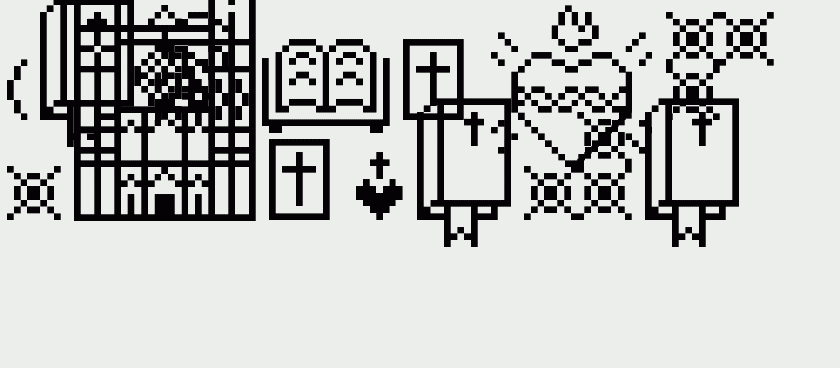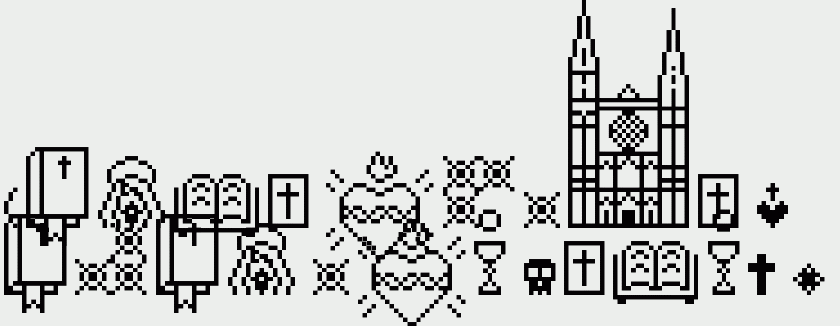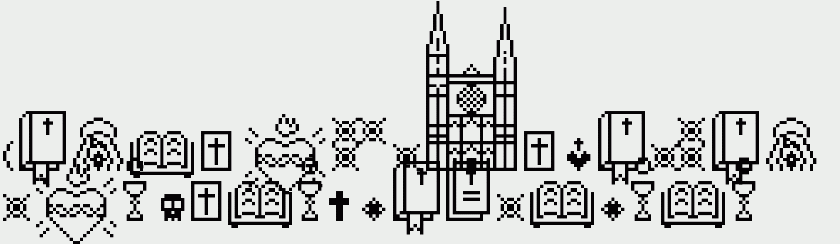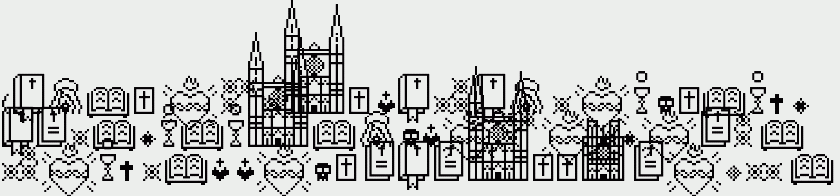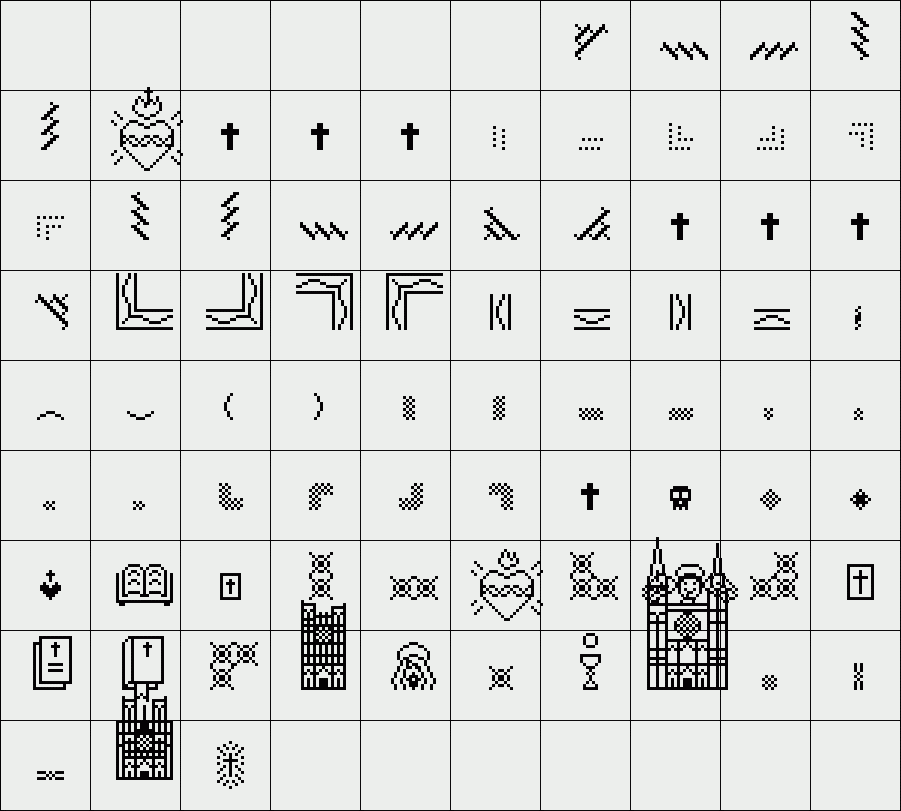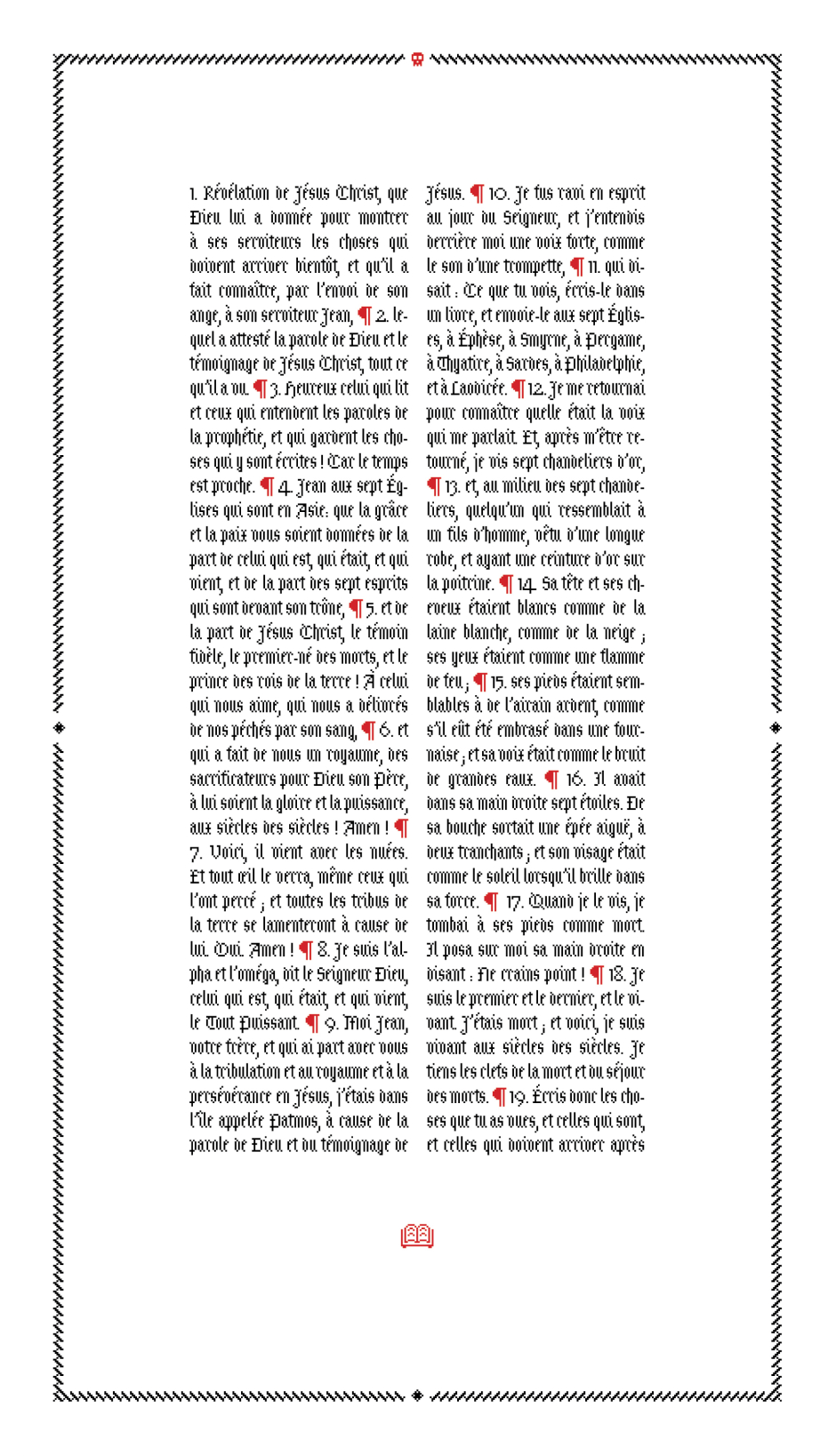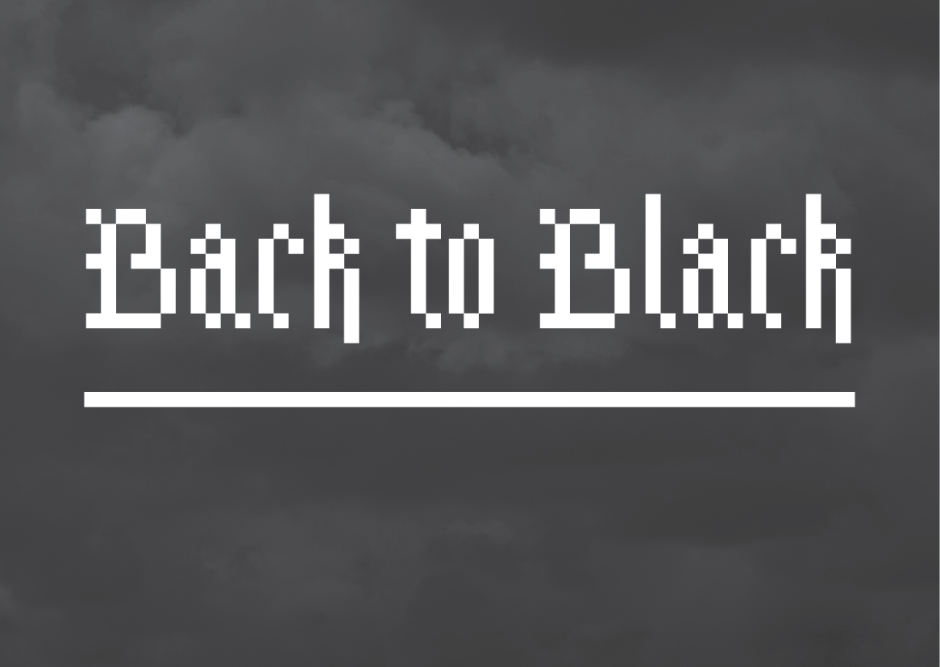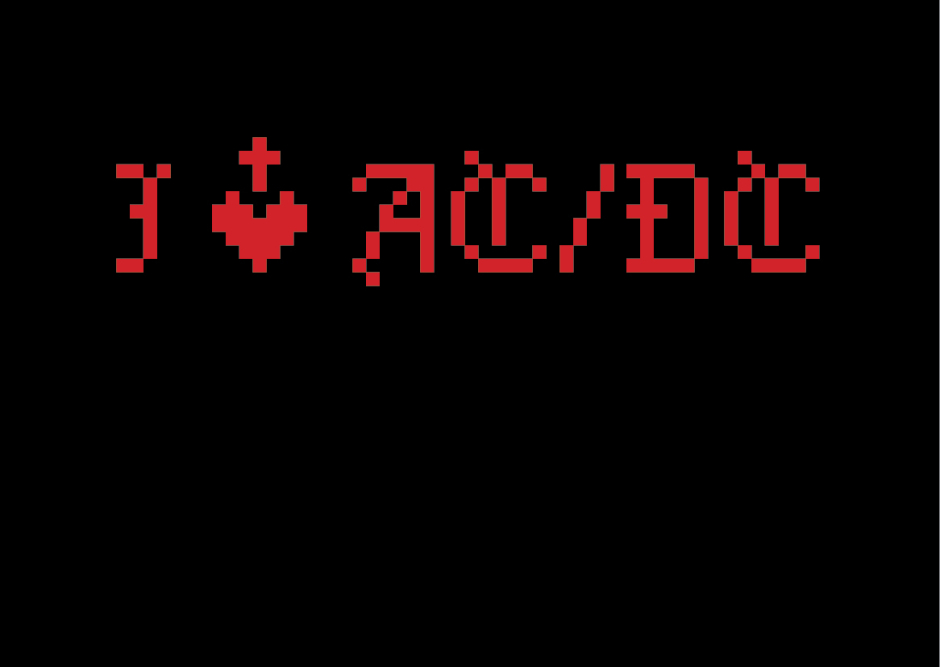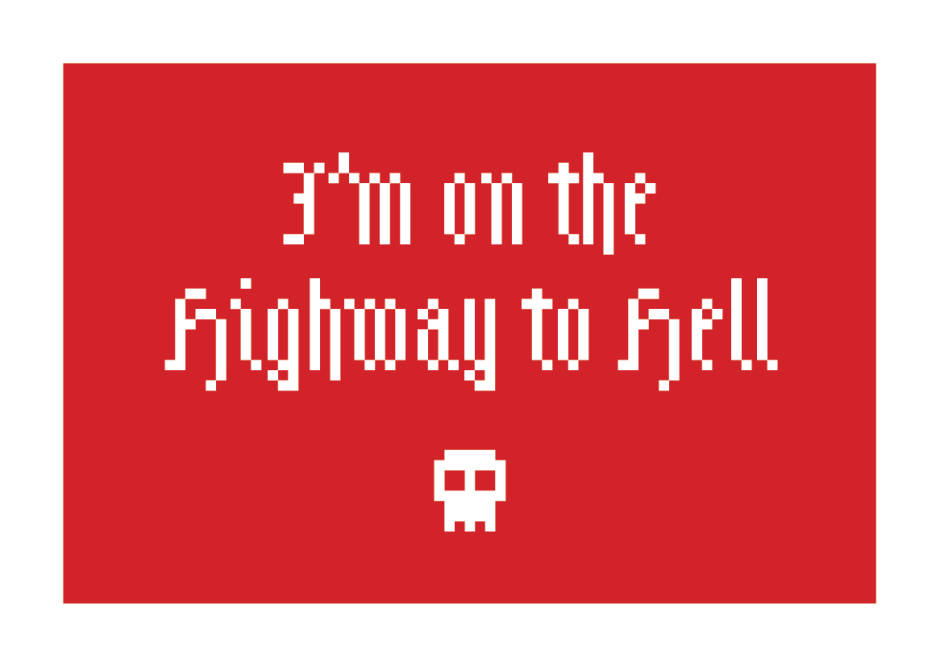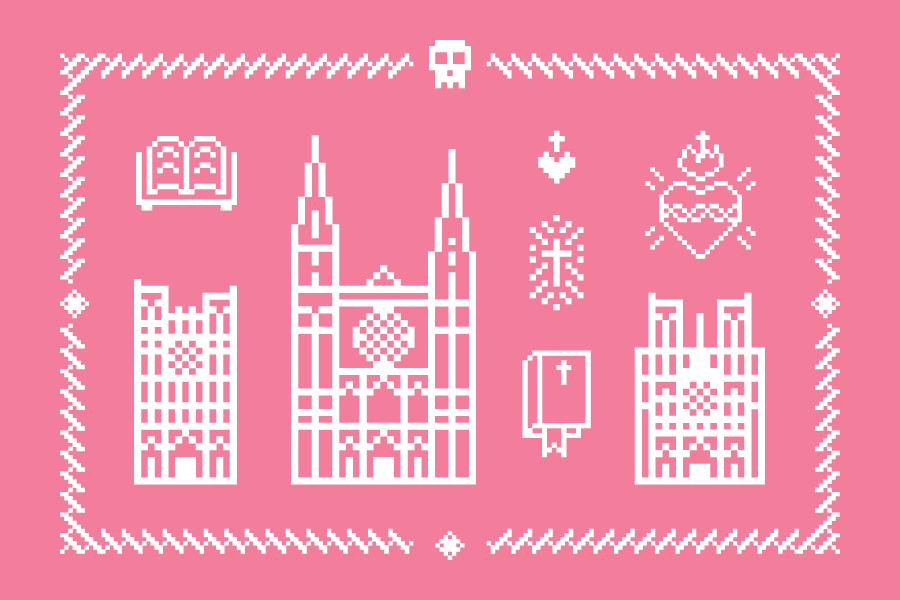
Methazoa
/ Methazoa Ornaments
Methazoa is an original pixel blackletter font, inspired by middle-age writing style and pixel artwork from the 80's.
The font included numbers, special latin characters, currency symbols and punctuation.
Gothic Ornaments available for free.